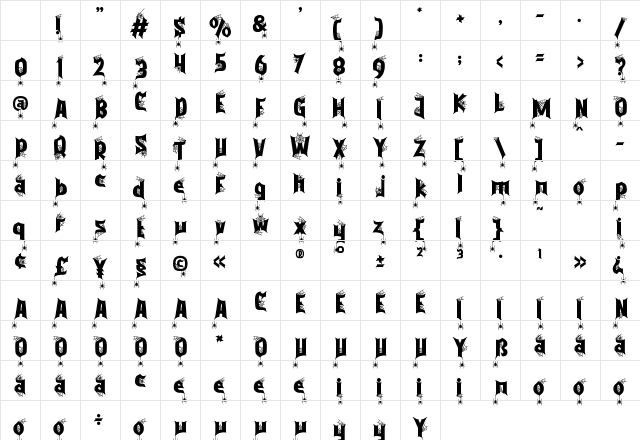
Complete Purgatorie Spider Regular glyph index. Displaying only characters natively supported by Purgatorie Spider Regular font.
Purgatorie Spider is a composed and adaptable typeface that performs quietly and consistently across a wide range of design contexts.